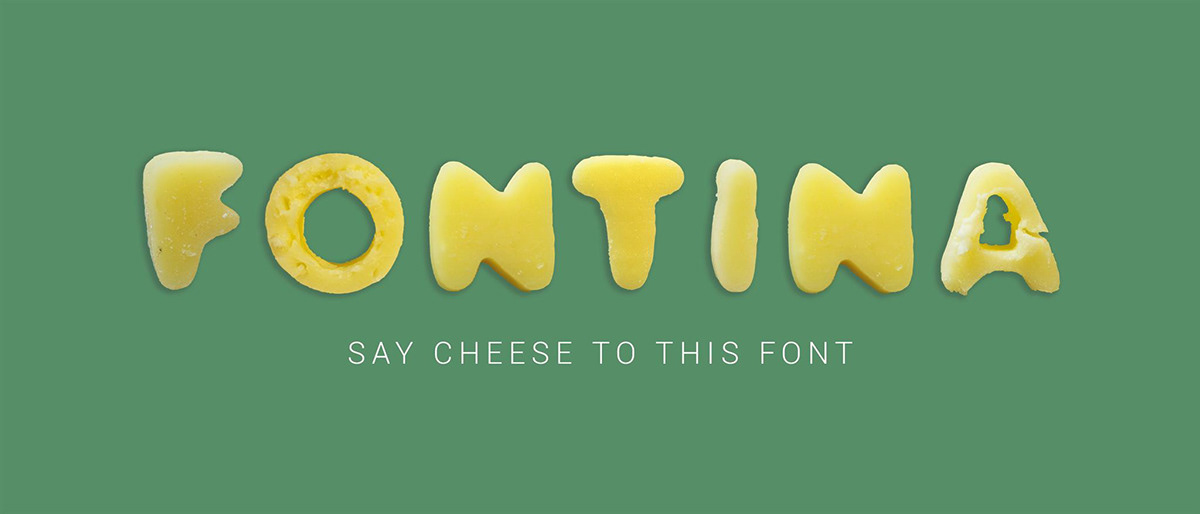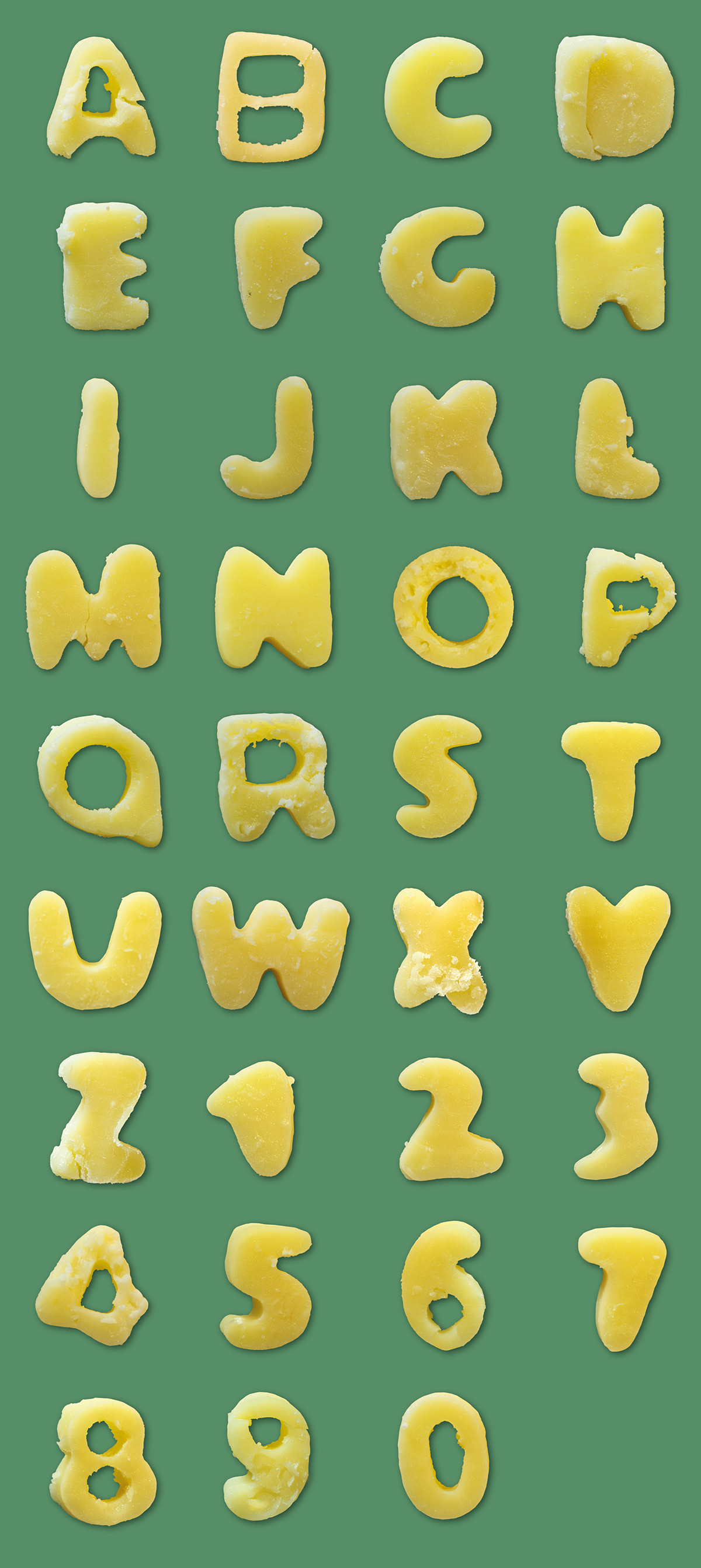
Why FONTINA? Fontina is the name of a famous Italian Cheese (link) and we use a simple pun to link a real hand-crafted font with a real hand-crafted cheese. Tasty, isn't it?!
First of all... cutter shapes!
And here we are! Our delicious FONTINA!
Shoooooooting time!
And now, it's your turn dear Photoshop
Finally our tasty font!